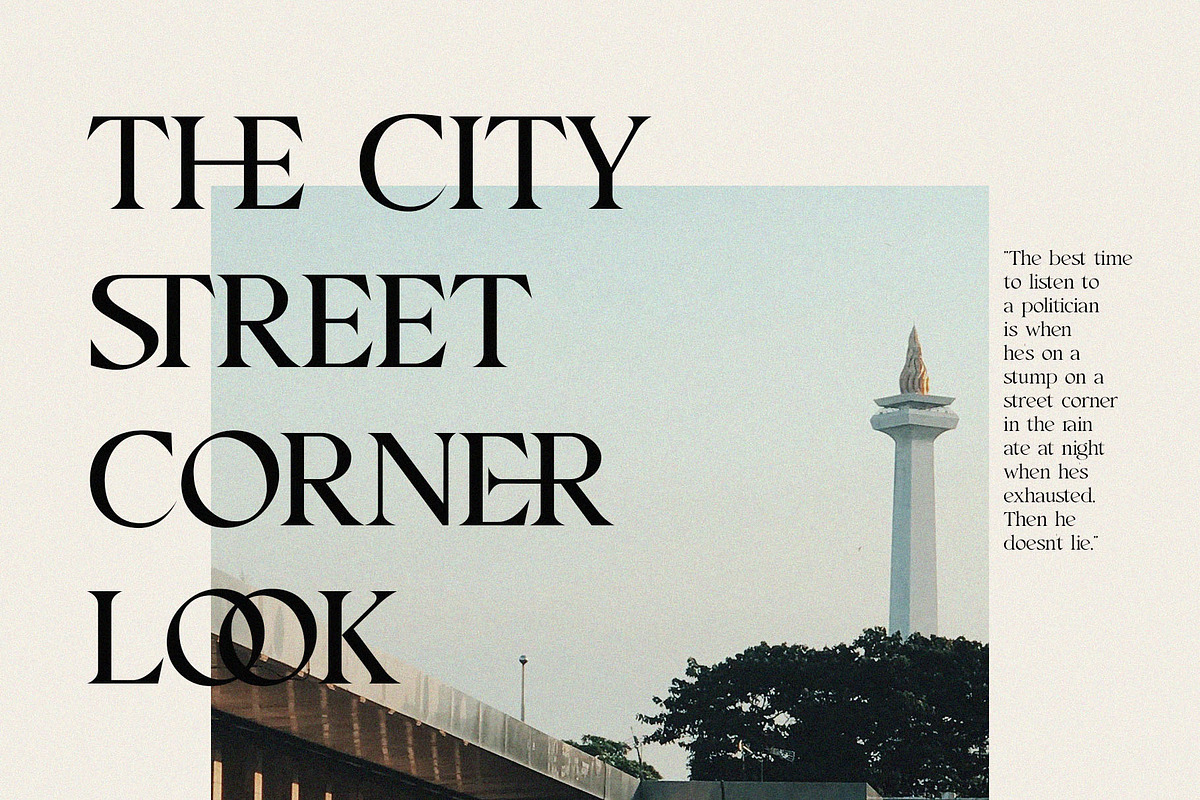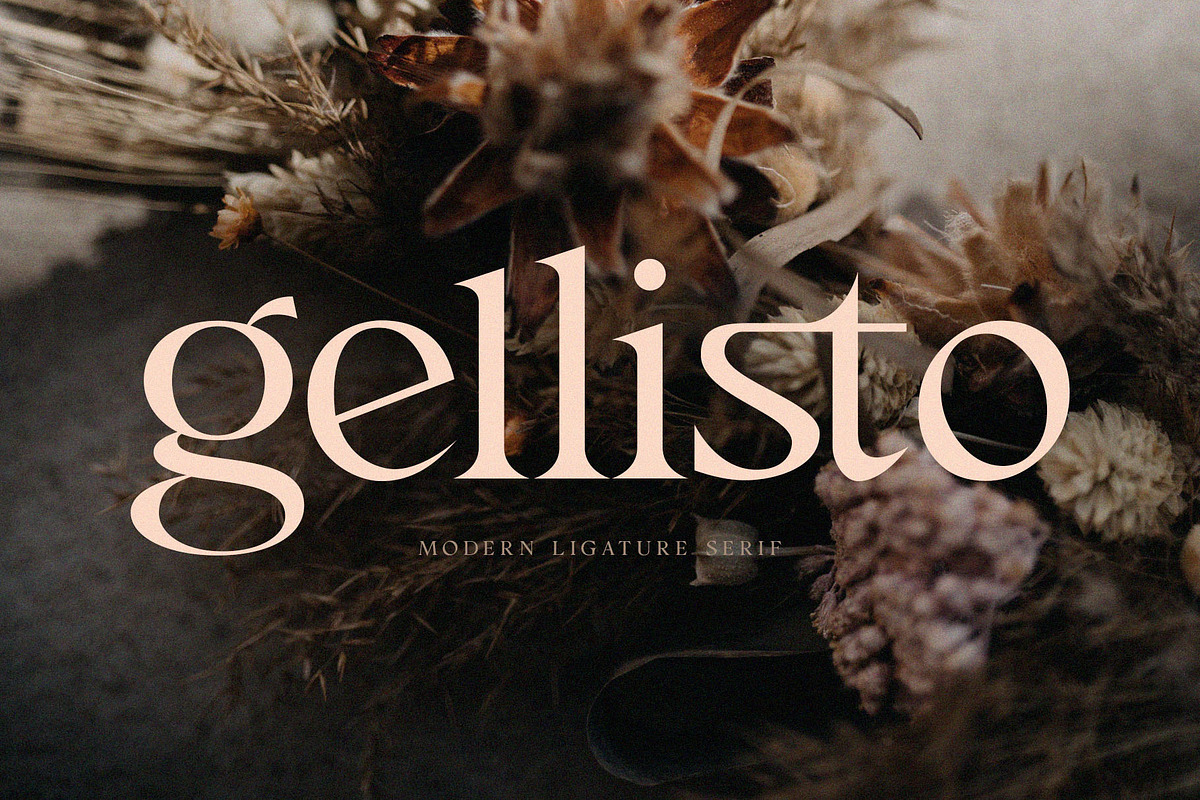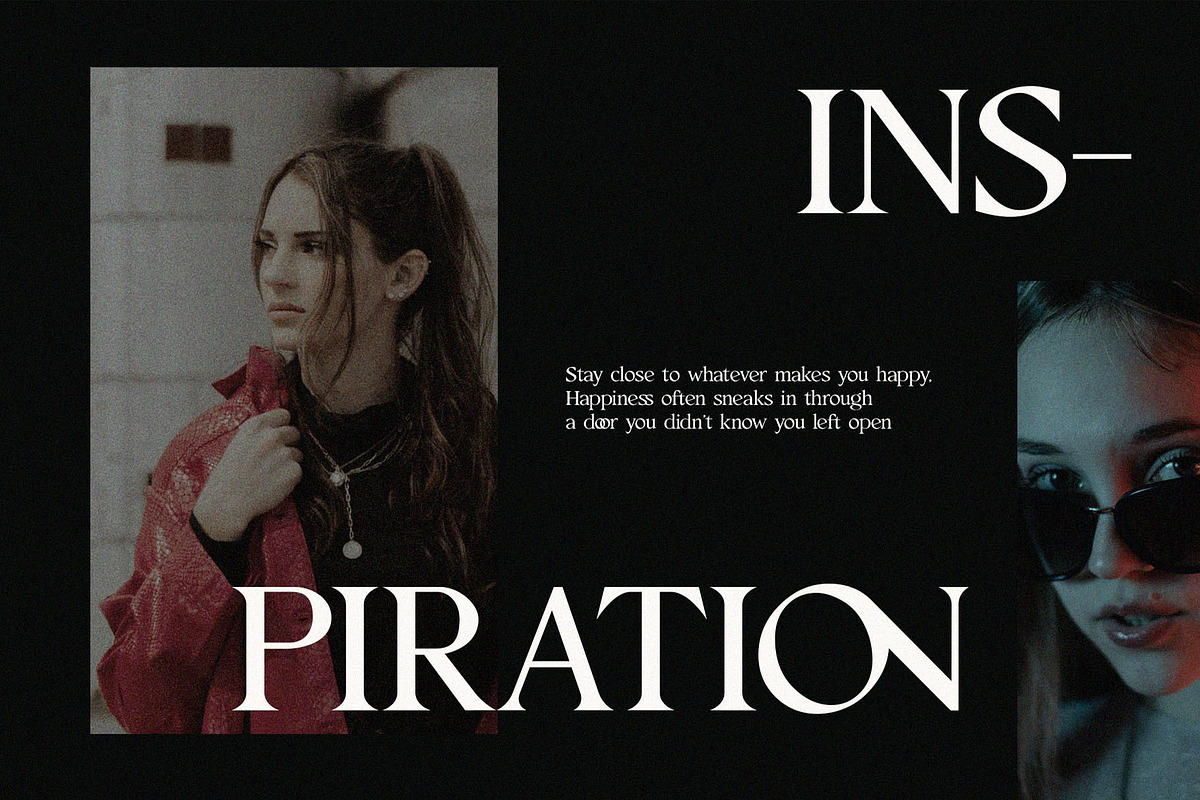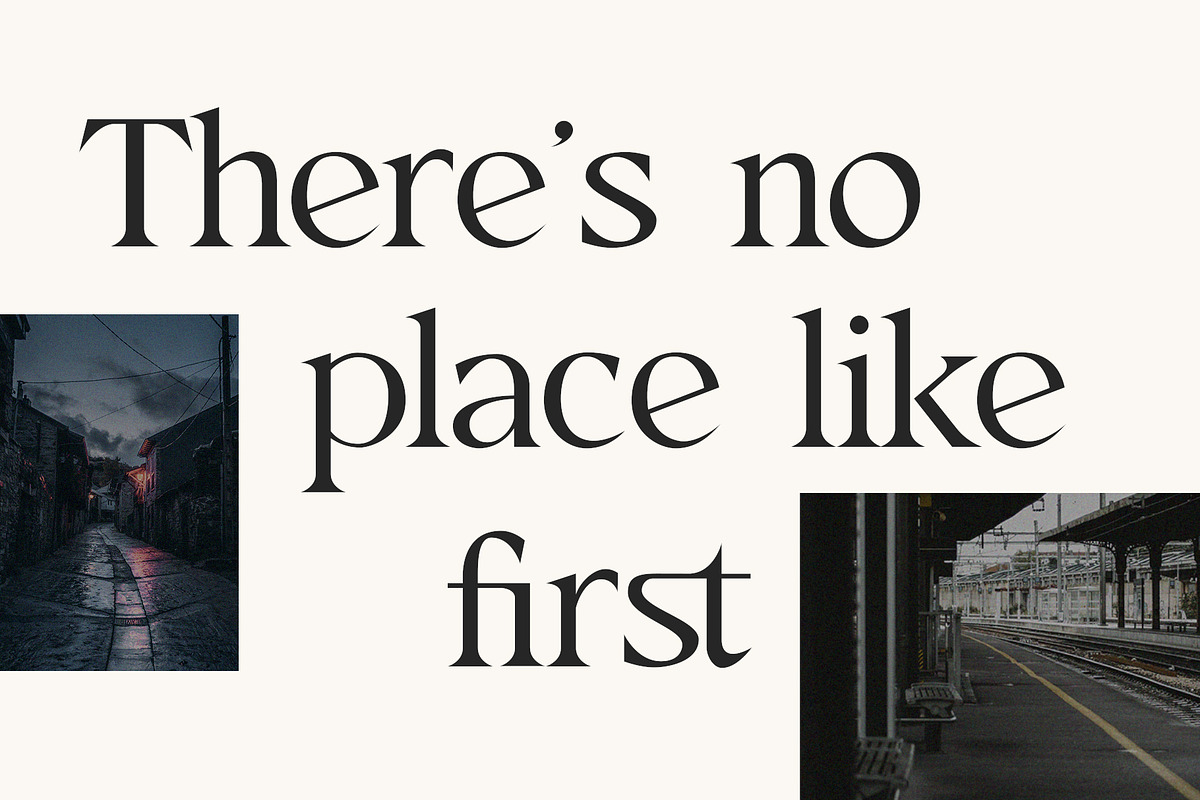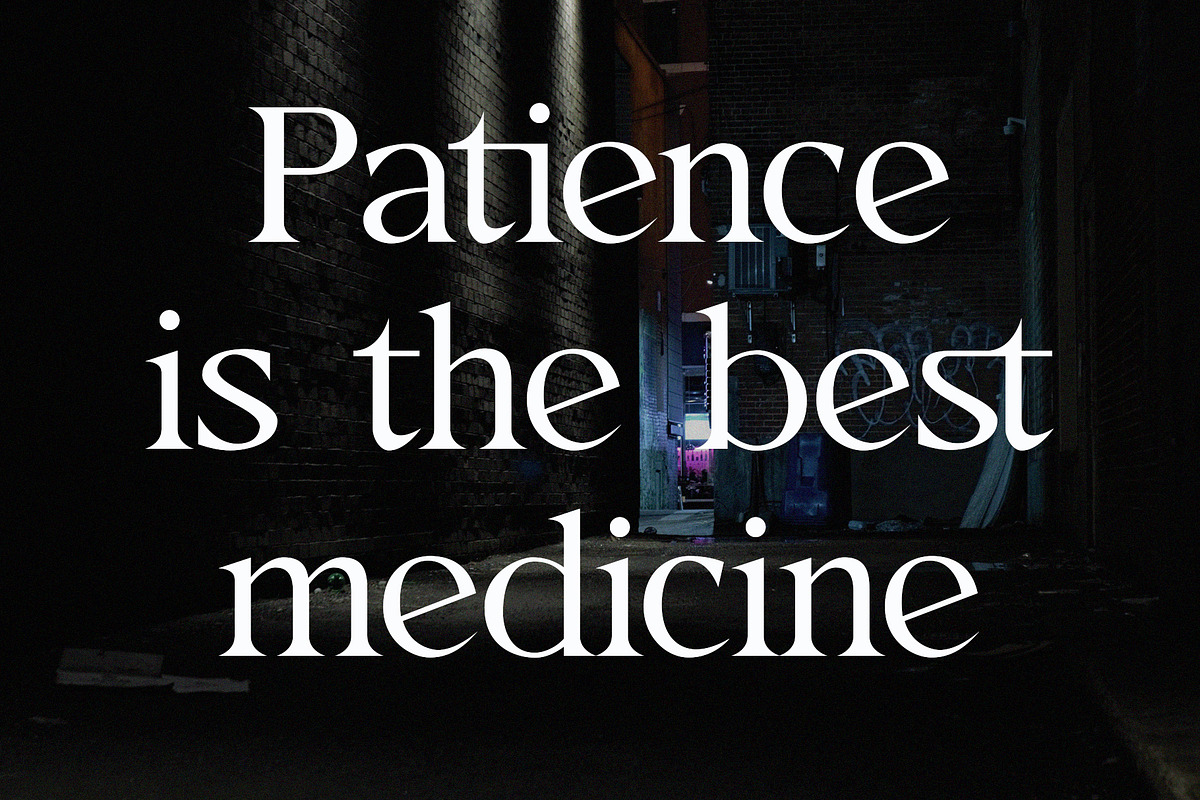
Gellisto Modern Ligature Serif
Introducing 'Gellisto' Font:
Introducing Gellisto, a modern, elegant, and classy sans-serif typeface meticulously designed for a range of applications including headings, logos, branding, magazines, product packaging, invitations, and beyond. Enhance your design repertoire with Gellisto and discover the inspiration it brings to your creative endeavors. Elevate your projects with the refined and sophisticated aesthetic of Gellisto, making it a valuable addition to your font collection.
Ideal for:
- Classy Designs
- Beauty and Fashion
- Advertising Campaigns
- Social Media Designs
- Elegant Creations
- Magazines
- Ready for Creative Expression
- Immaculately Crafted Letters